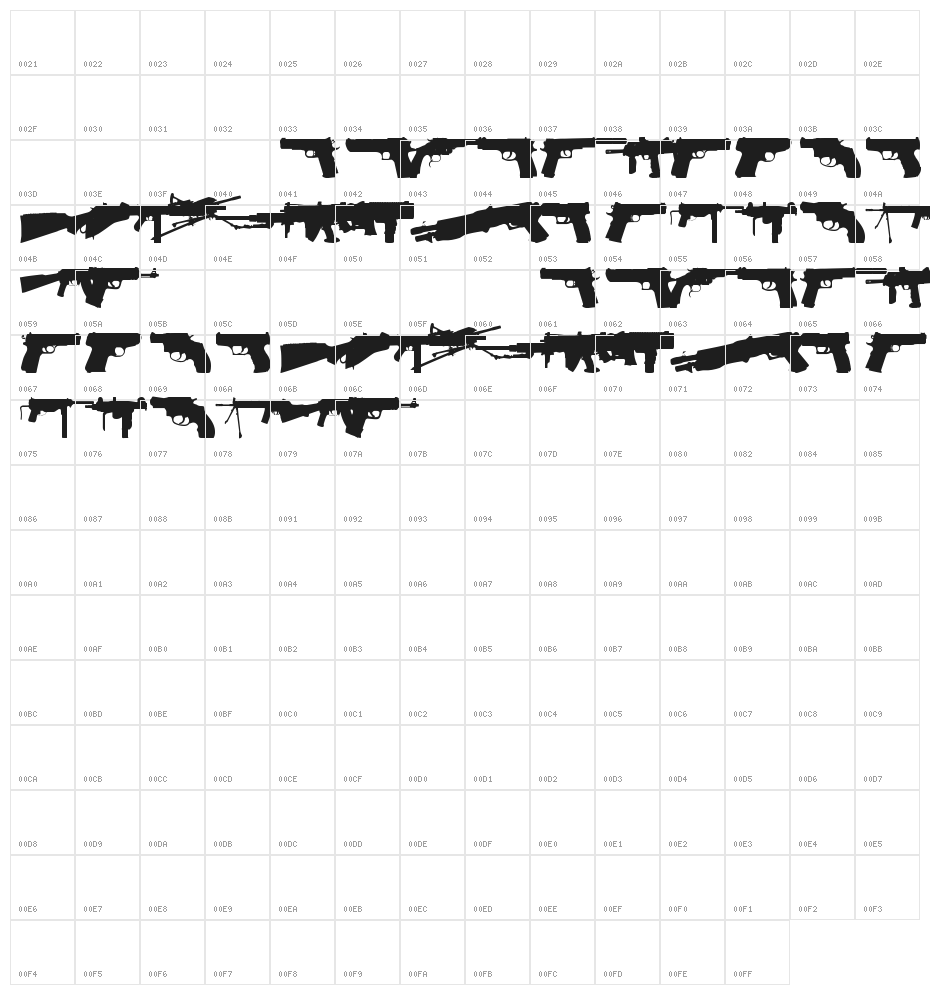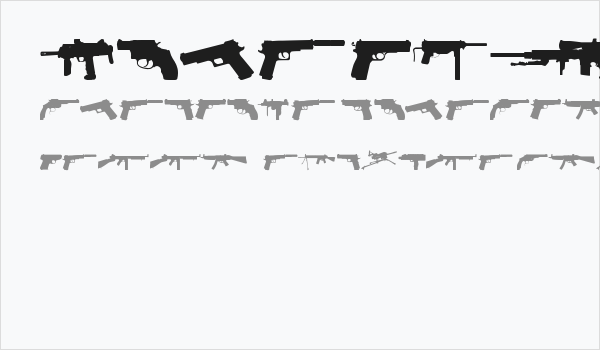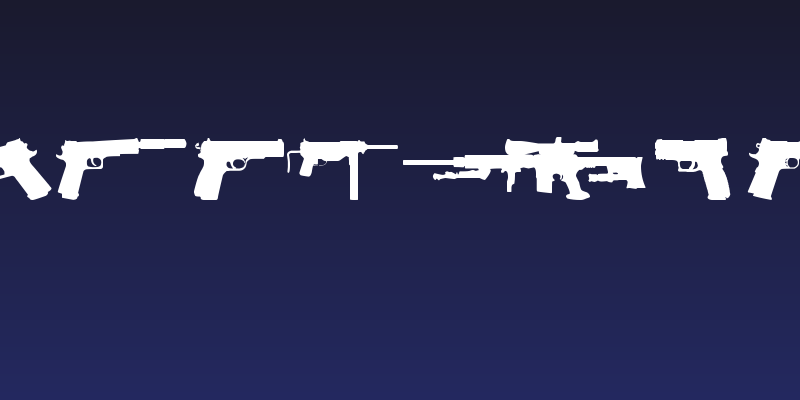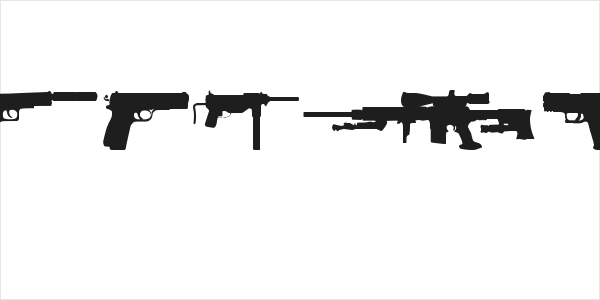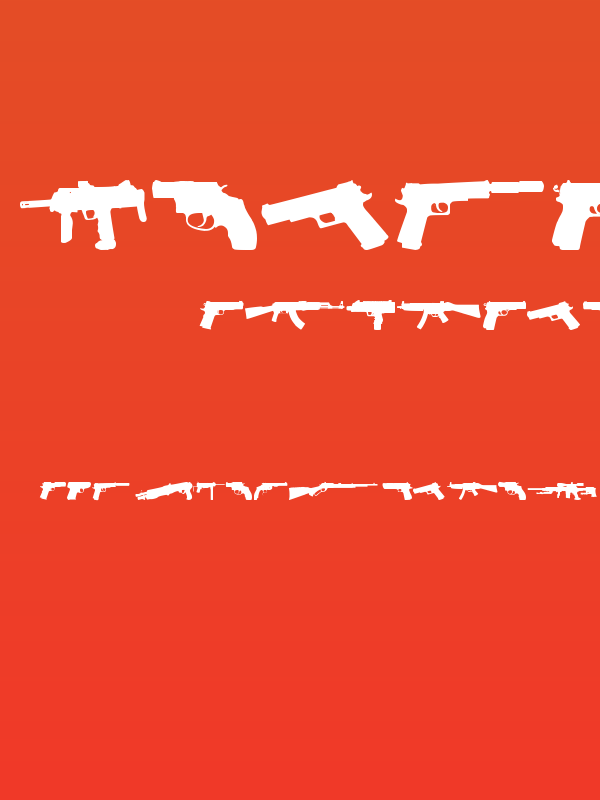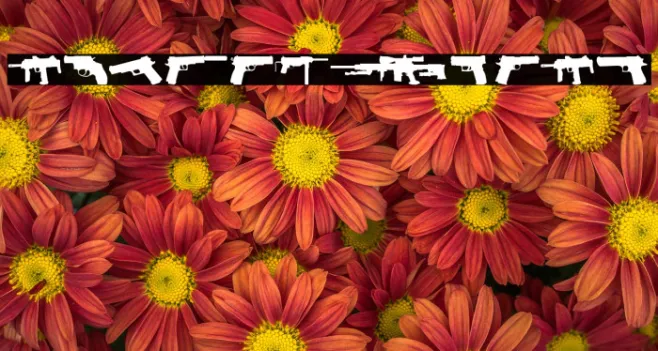
Fireguns tfb Font
Fireguns tfb Description
A decorative display font where each character is represented by the silhouette of a different firearm, including pistols, rifles, shotguns, and submachine guns. The glyphs are highly illustrative and lack traditional typographic features, focusing on weapon shapes rather than legibility.
| Overall Style | Decorative, Thematic, Novelty |
| Use Case | Logos, Headlines, Posters, Themed graphics |
| Proposed Projects | Posters, video game titles, themed event graphics, novelty merchandise, anti-violence campaigns, entertainment branding. |